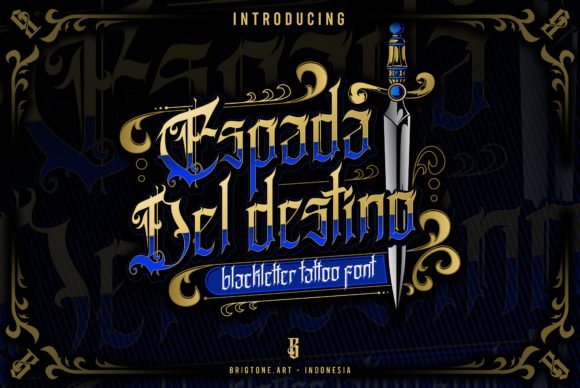
Introduction to Espada Del Destino Font
Espada Del Destino is a bold and authentic blackletter font.
Add this assertive font to your formal designs and notice how they instantly stand out .
Key Features of Espada Del Destino Font
Why Choose Espada Del Destino Font?
Espada Del Destino Font offers exceptional quality and versatility, making it a valuable addition to your design toolkit. Whether you’re creating for personal projects or commercial use, Espada Del Destino Font delivers professional results.